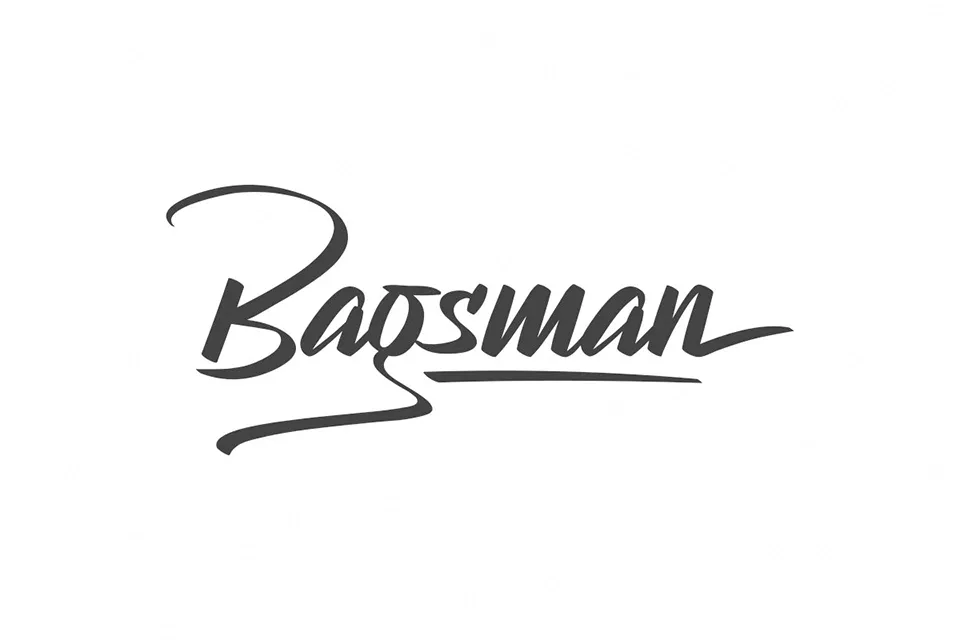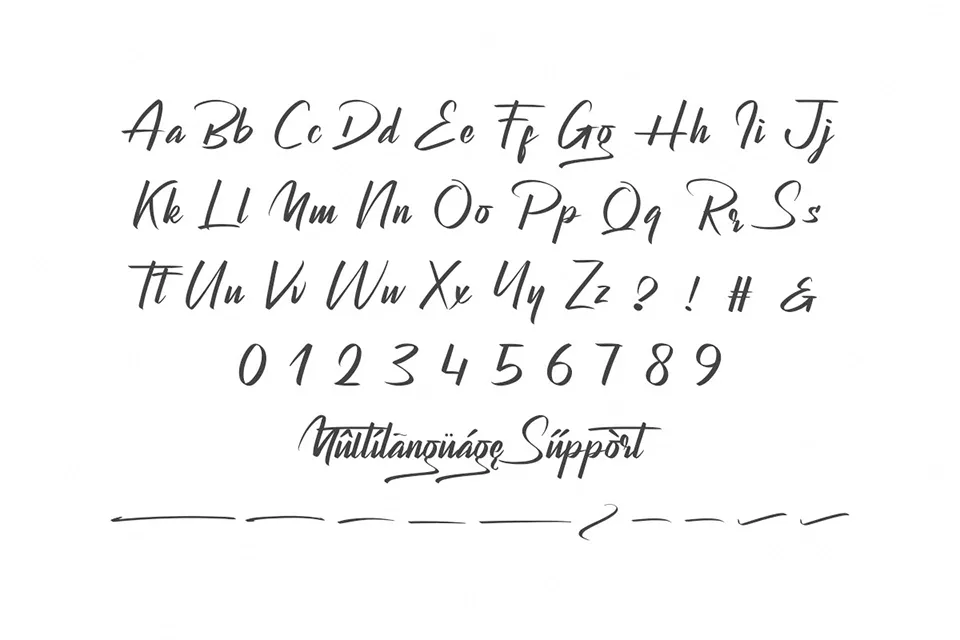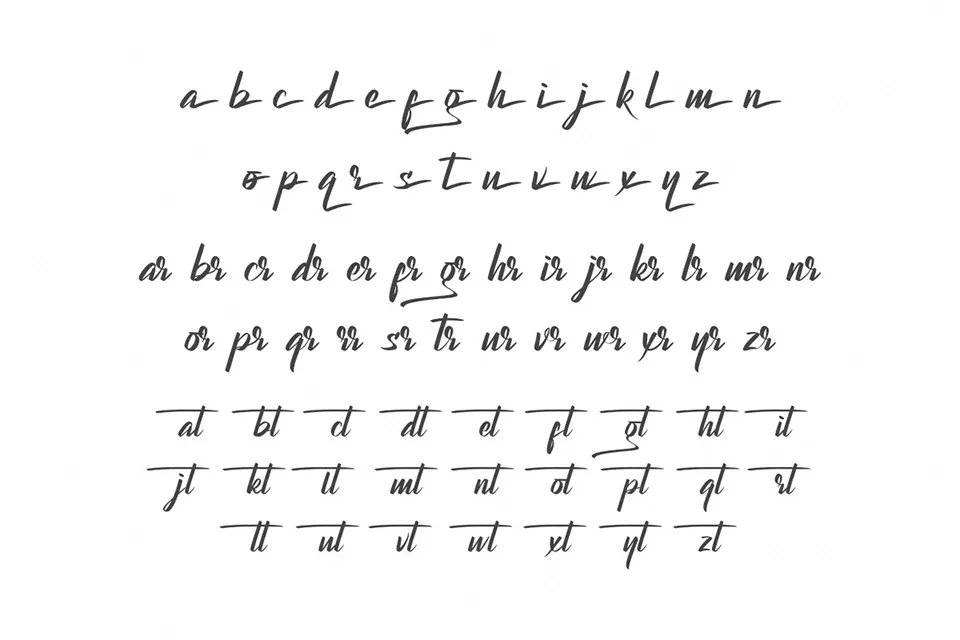
Bagsman Font
Bagsman Font is a bold and stylish script typeface that combines modern flair with a touch of elegance. Its dynamic, hand-drawn strokes and smooth curves make it perfect for creating eye-catching designs that stand out. Ideal for logos, branding, posters, and social media graphics, Bagsman brings personality and sophistication to any project. The font’s flowing style ensures versatility, making it suitable for both casual and professional applications. Whether you’re crafting a signature logo or adding a creative edge to your designs, Bagsman delivers a polished and artistic look that leaves a lasting impression. Elevate your work with the charm of Bagsman!